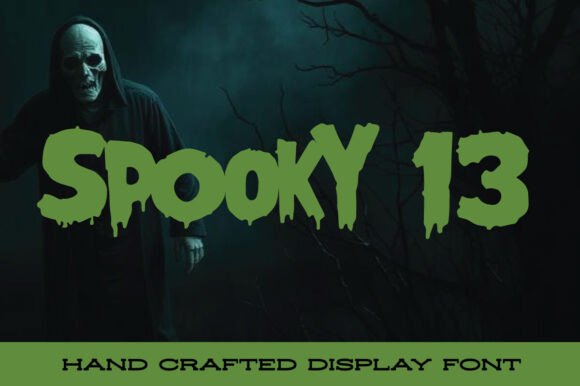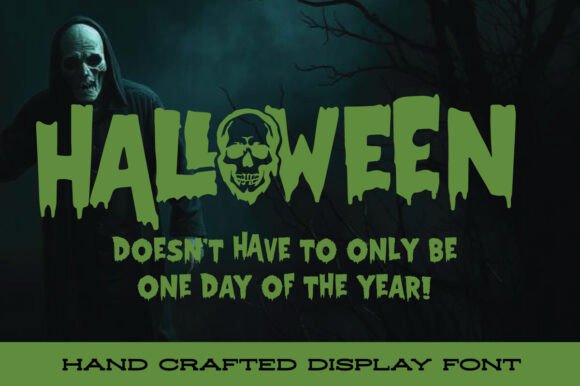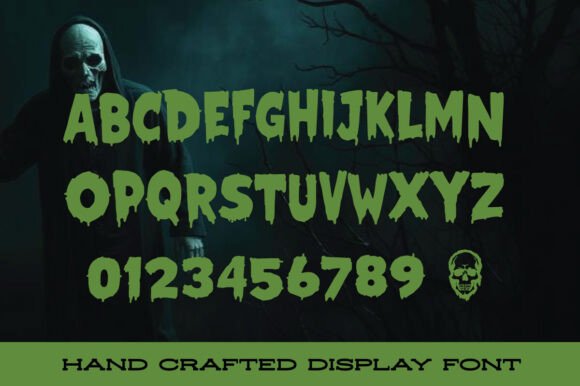
Spooky 13 Font
About the Spooky 13 Font
Step up your design game with Spooky 13 Font, a font that exudes confidence and style. Spooky 13 is a horror movie-inspired Halloween font that oozes with eerie charm. Featuring bold, thick lines and dripping effects, this font captures the essence of classic horror aesthetics. Its sinister, gooey characters are perfect for haunted house flyers, creepy movie posters, or any design that needs a spine-chilling touch. Let Spooky 13 bring a frightfully fun vibe to your next spooky project!
Spooky 13 Font Usage Examples